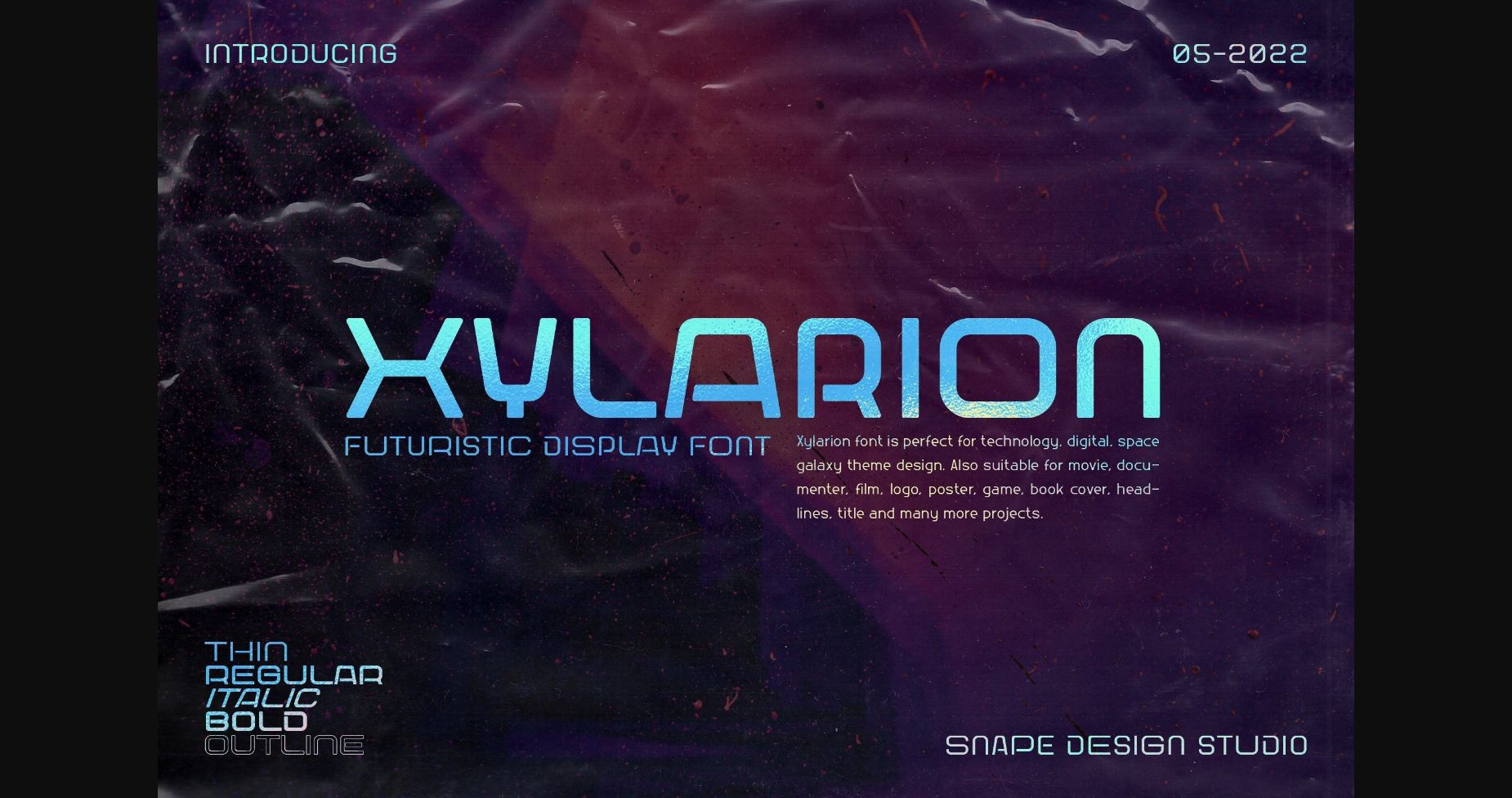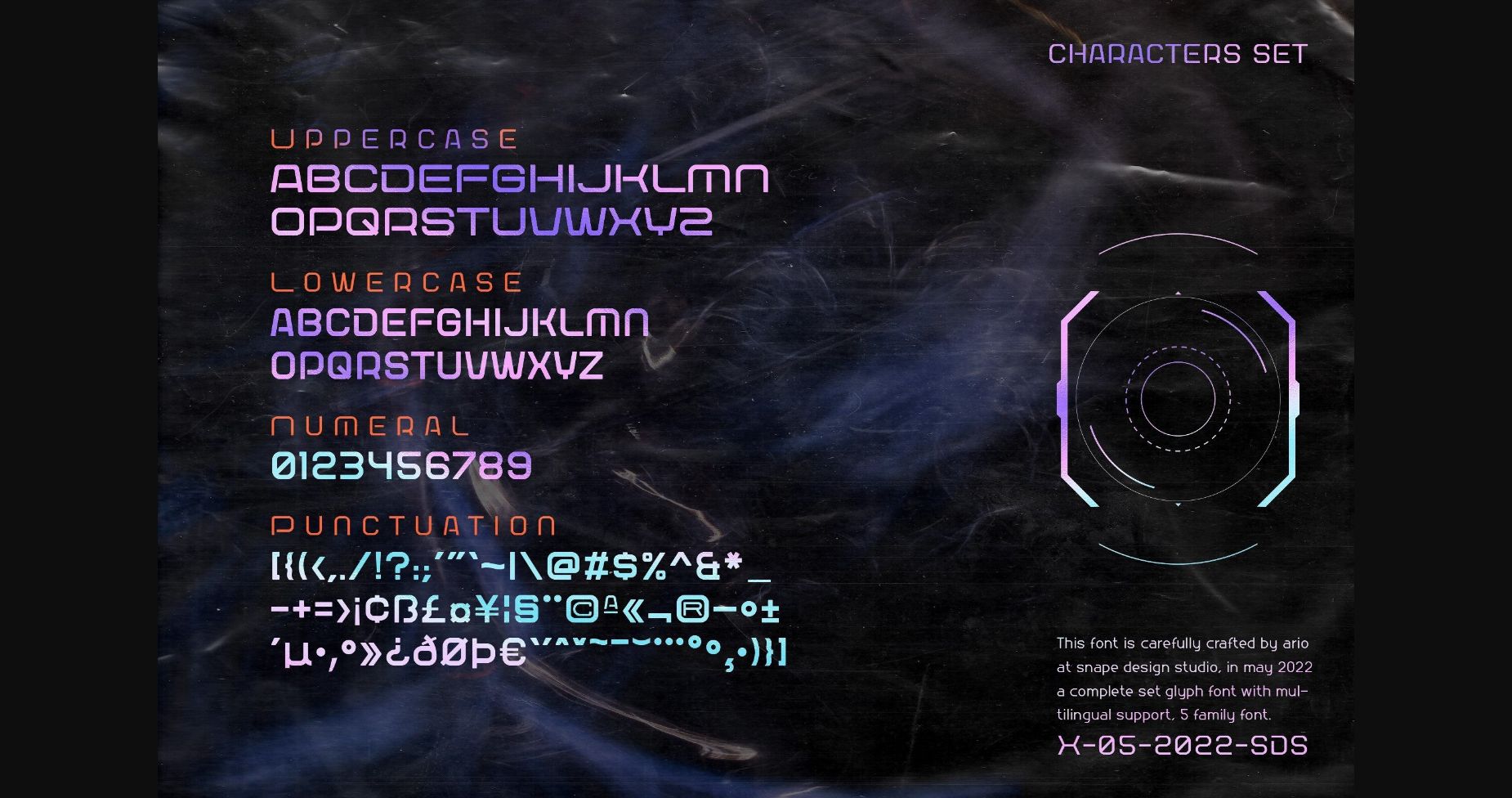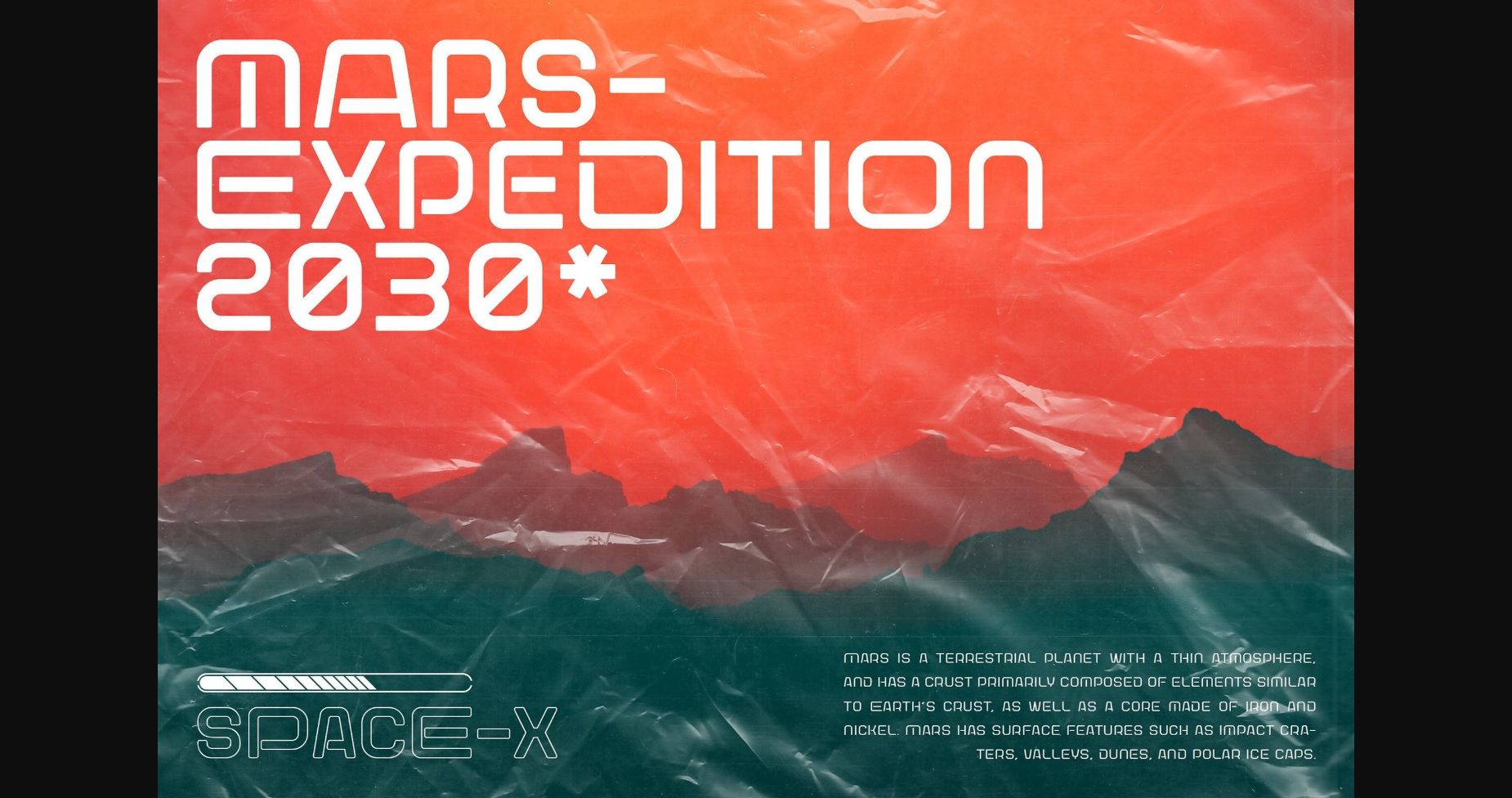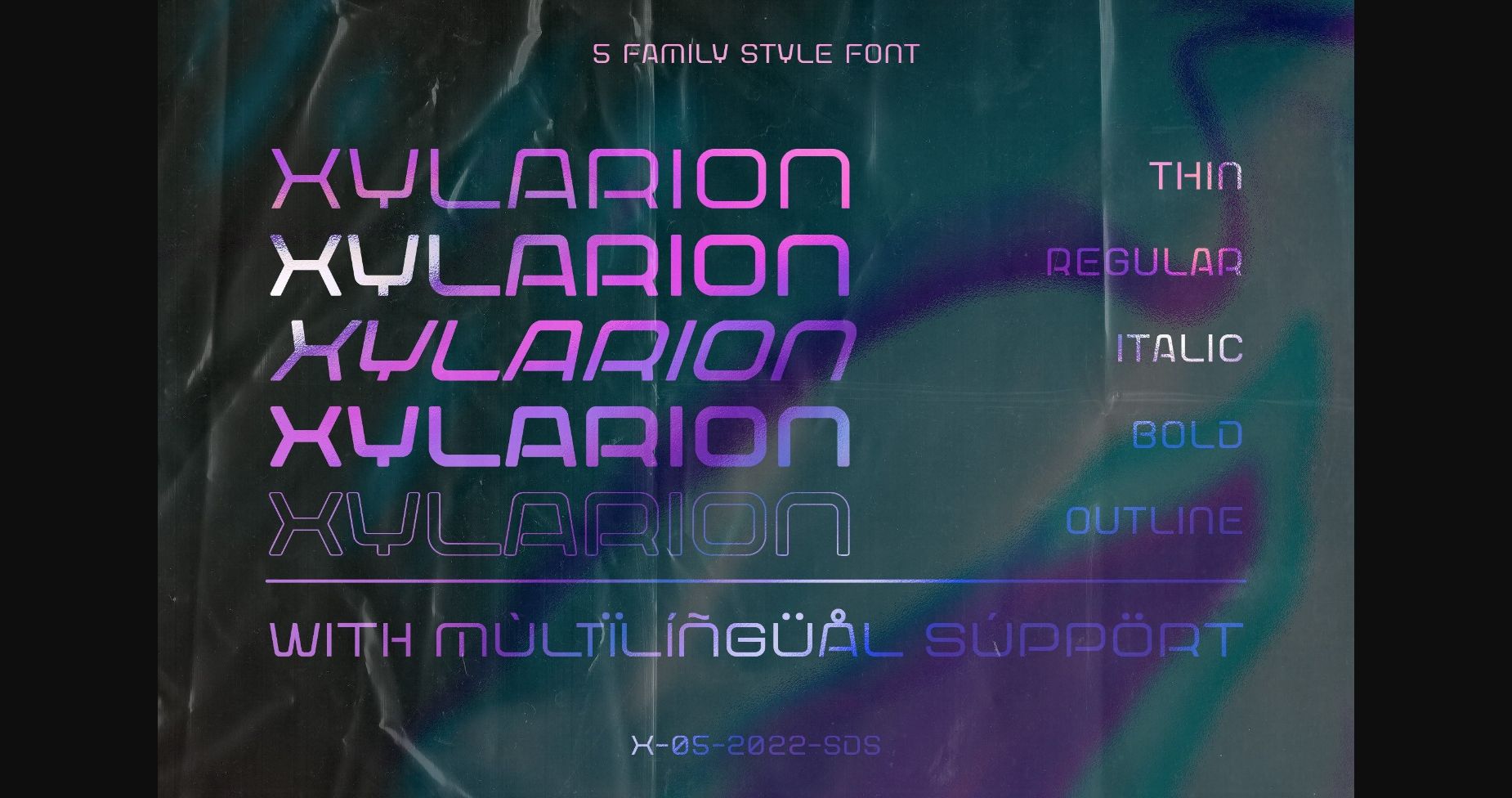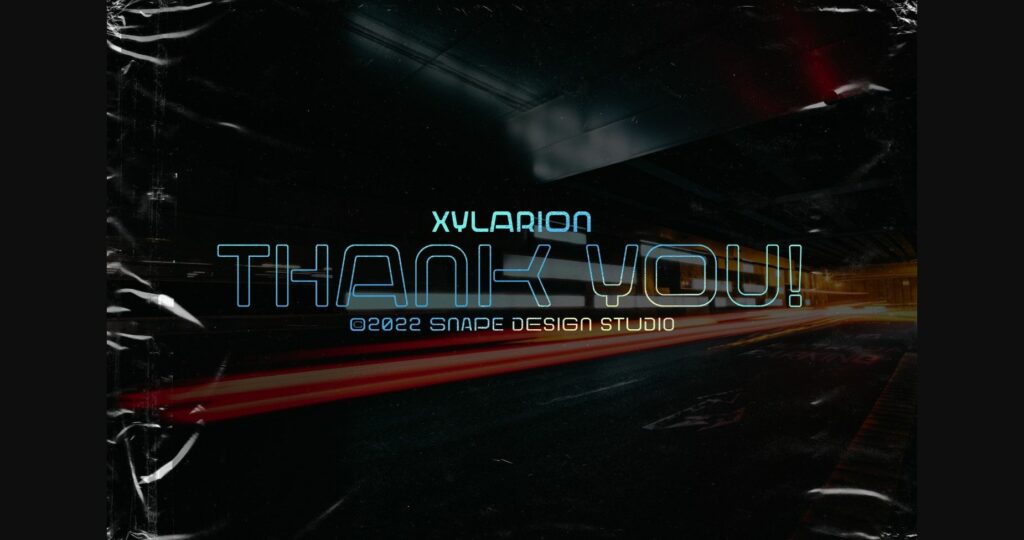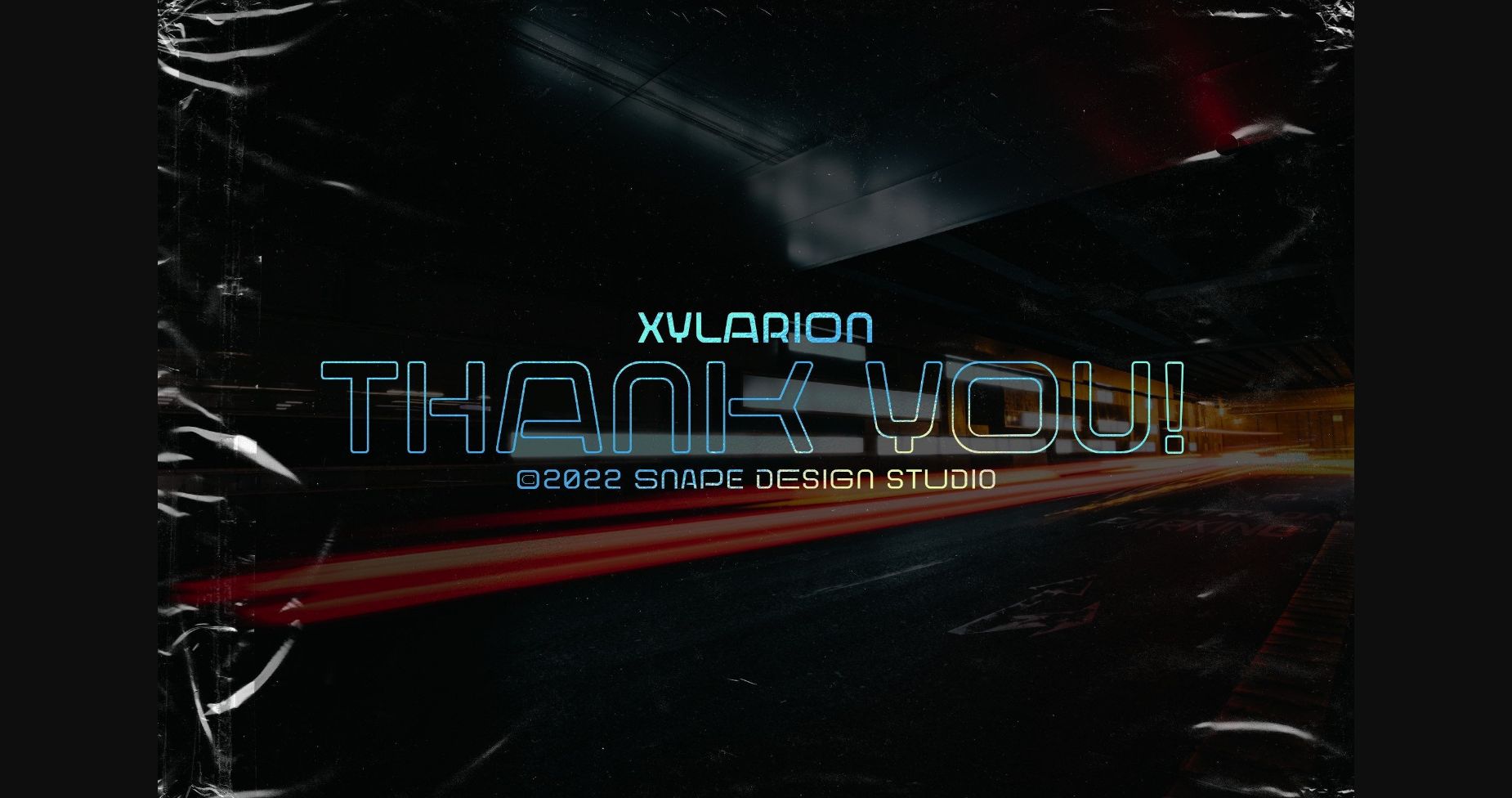
Xylarion Font
About Xylarion Font
Xylarion is a modern and futuristic sans serif font. Xylarion is perfect for technology, digital, and space galaxy themes. Also suitable for movies, documentaries, films, logos, posters, games, book covers, headlines, titles, and many more projects.